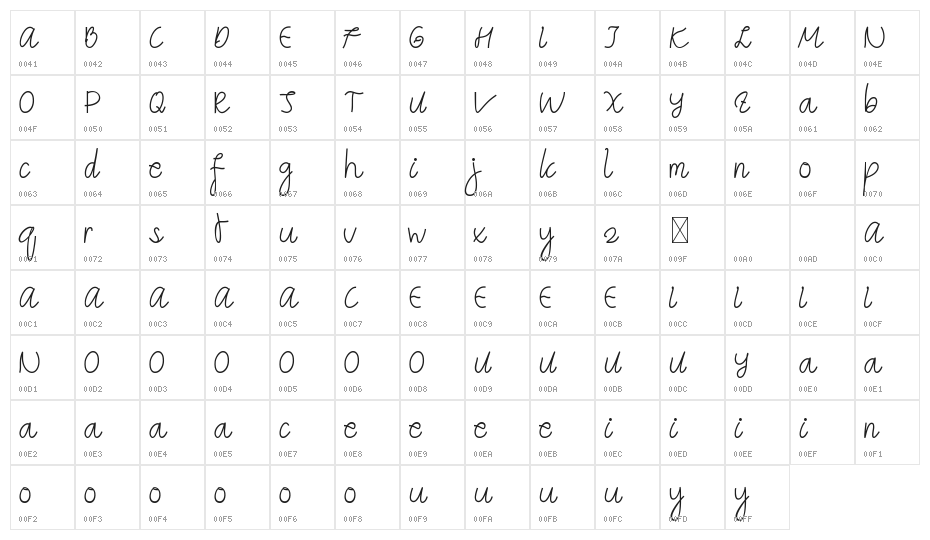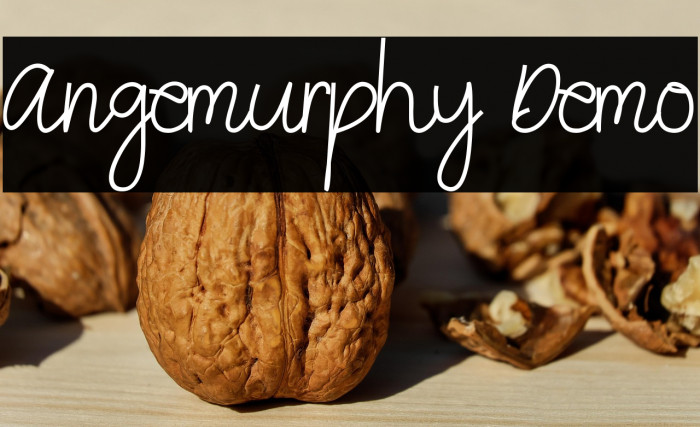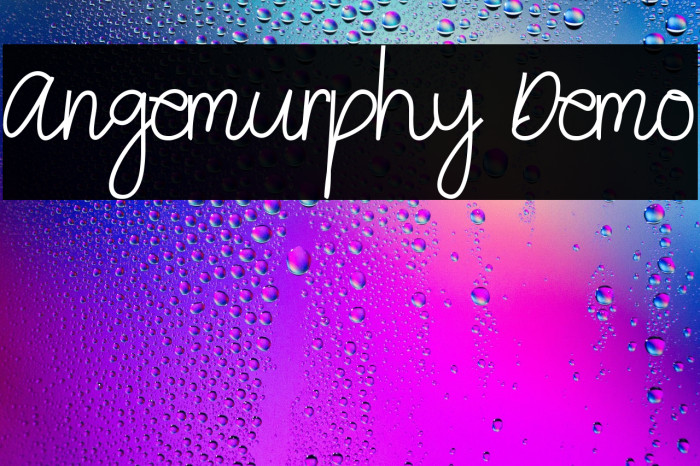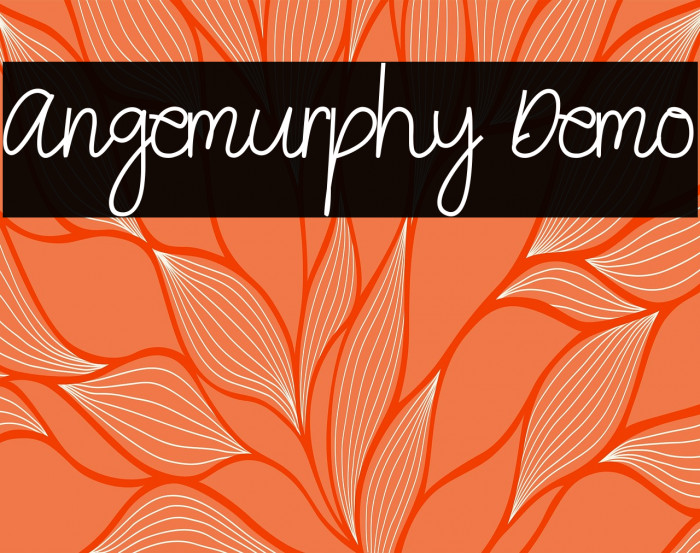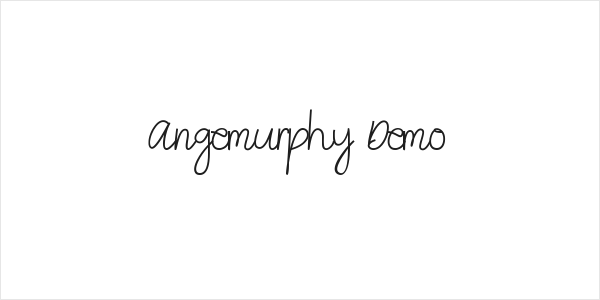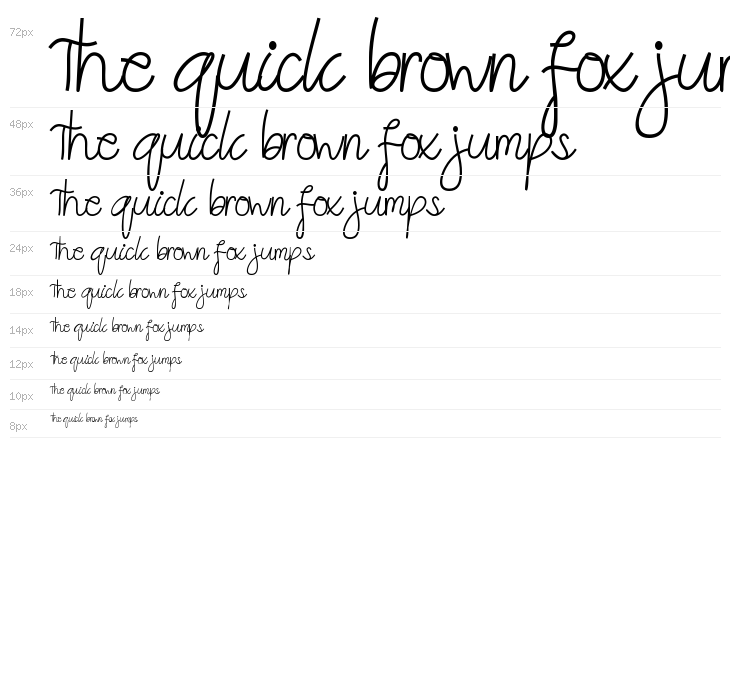
Angemurphy Demo Font
Angemurphy Demo Description
This font features a lively and flowing script style, characterized by its smooth, continuous strokes that mimic the fluidity of handwriting. The letters are elegantly connected, creating a sense of movement and grace. The uppercase letters maintain a consistent height, while the lowercase letters exhibit a playful variation in size, adding to the font's dynamic appearance. The overall design is both casual and sophisticated, making it suitable for a variety of creative applications. The font's legibility is enhanced by its moderate character spacing and consistent stroke width, ensuring readability while maintaining its artistic flair.
| Use Case | Logos, Invitations, Personal projects |
| Proposed Projects | Ideal for wedding invitations, greeting cards, branding, and personal projects that require a touch of elegance and personality. |